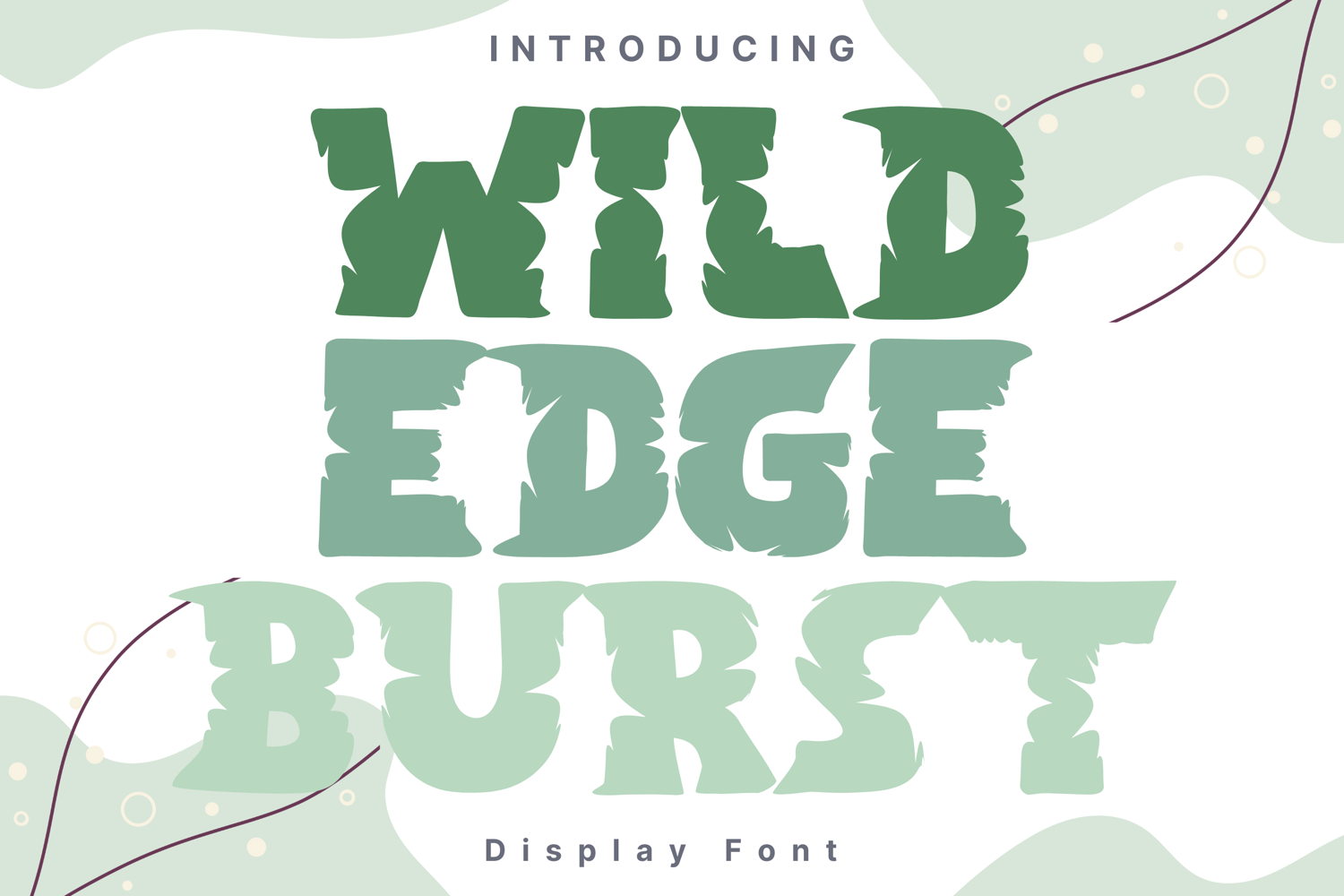
Wild Edge Burst Style
WildEdgeBurst
Wild Edge Burst is a bold, distressed display font with jagged edges and an explosive, energetic vibe. Its rough-cut look creates a sense of motion and rebellion, making it perfect for extreme sports branding, music festival posters, adventure-themed designs, and attention-grabbing titles. This font adds a raw and powerful edge to any project.